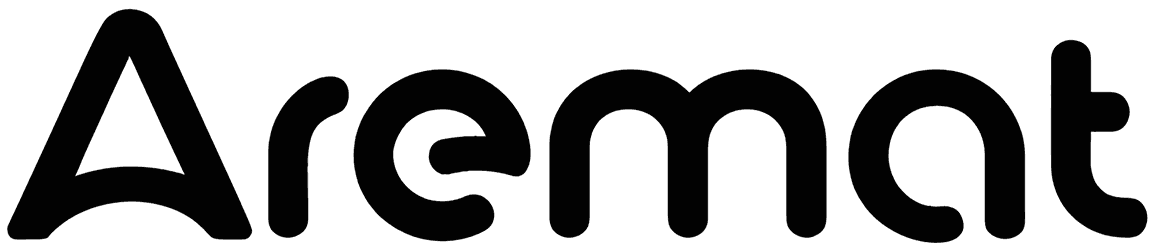
Aremat Font
When it comes to designs whose designers want to think outside the box and make a creative leap, Aremat comes to the fore. This geometric font has a collection of symbols inspired by shapes and lines that can be perfect for any fun project you’re working on.
The thick and borderless lines of this rounded font make it suitable for use in logos, posters, headlines, and product packaging.